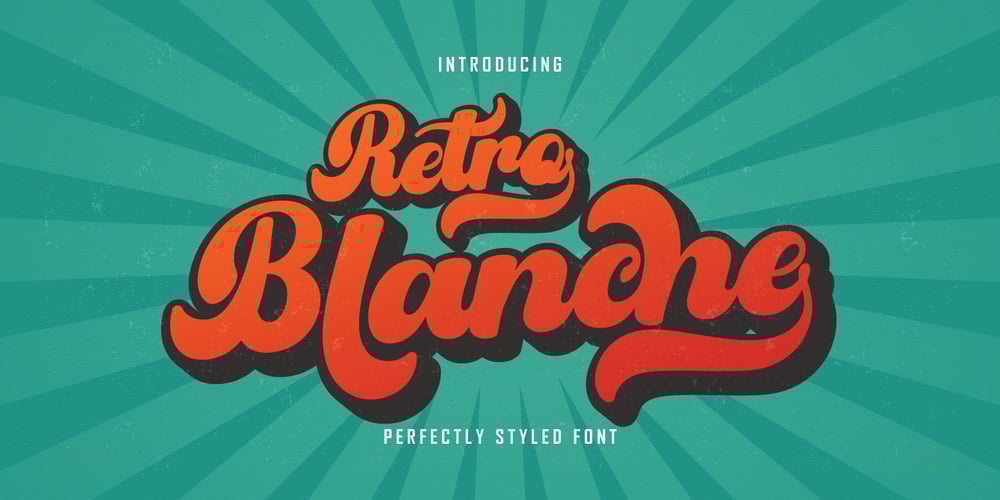
Retro Blanche Font Family was designed by Haikal Juanda and published by Pista Mova. Retro Blanche contains 2 styles and family package options. Blanche is a hand-drawn, retro script font. This font is perfect for all your fun designs!Use Blanche to create logos, branding, stickers, shirts, signs, posters, quotes, instagram posts, procreation designs and more!Includes shadow/extrude versions that are perfectly sized to fit Blanche Regular – so you can layer both fonts easily!Blanche Regular Blanche ExtrudeThank You!